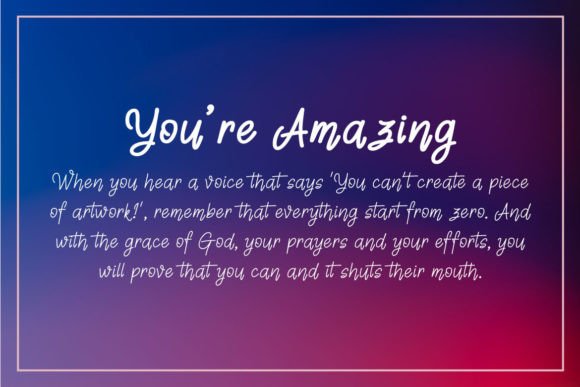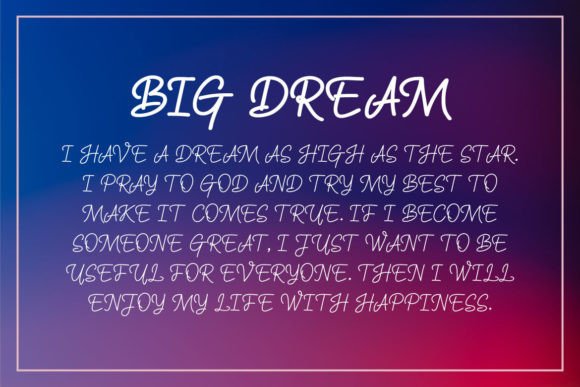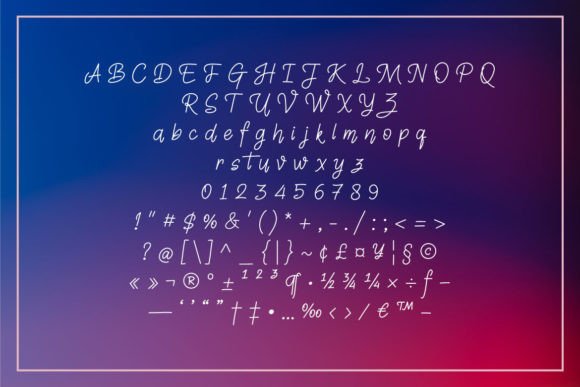
Introduction to Ristany Font
Ristany is a captivating script font that exudes charm and personality.
With its unique hand-drawn design, each letter is intricately crafted to convey a sense of elegance and individuality Perfect for invitations, branding, and social media, Luminous will make your designs stand out and shine.
Key Features of Ristany Font
Why Choose Ristany Font?
Ristany Font offers exceptional quality and versatility, making it a valuable addition to your design toolkit. Whether you’re creating for personal projects or commercial use, Ristany Font delivers professional results.